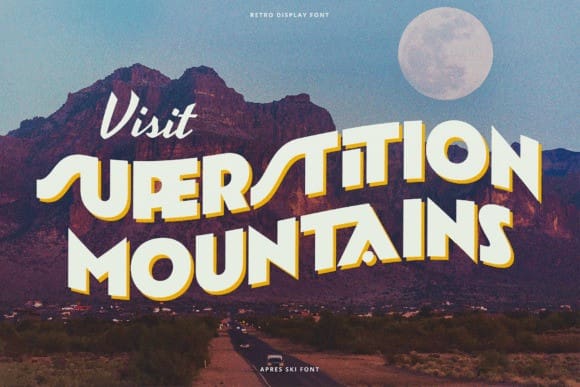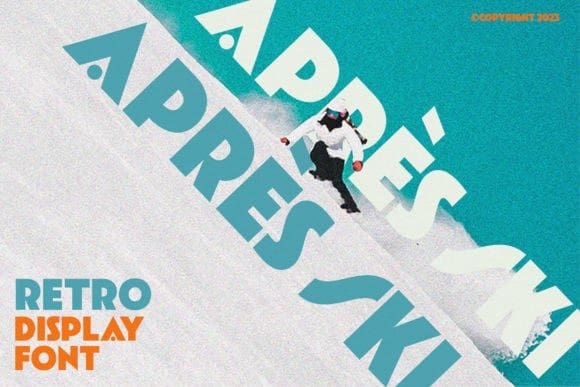
Après Ski Font
Après Ski Font is a bold display font that will transport you back in time. This font is perfect for any project that needs a touch of vintage charm. With 266 ligatures, it’s versatile enough to be used in a variety of design applications.
The strong, bold lines of Après Ski make it an ideal choice for headlines and other eye-catching designs. It’s perfect for adding a retro twist to your branding, or for creating posters and other graphics that demand attention.
So why wait? Give your designs a boost of nostalgia with Après Ski.